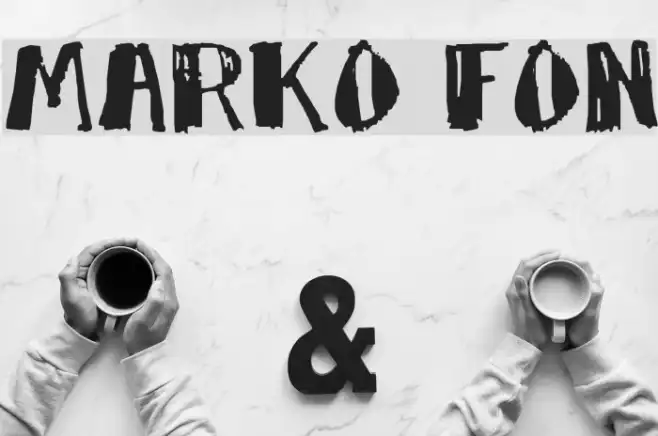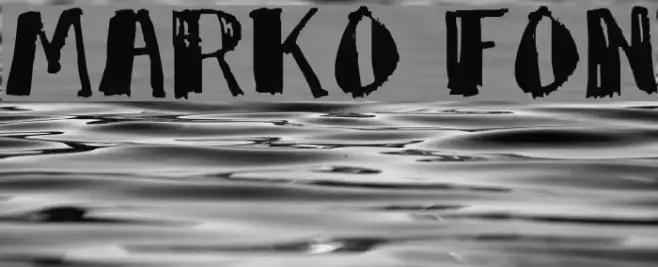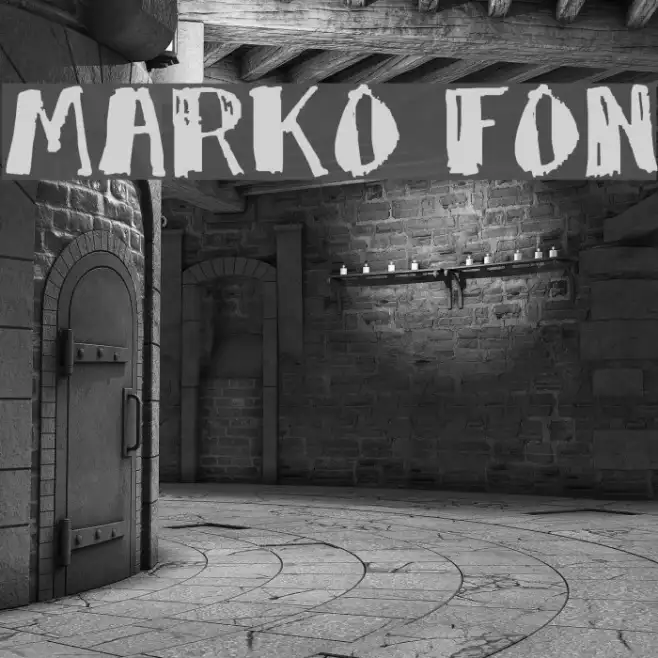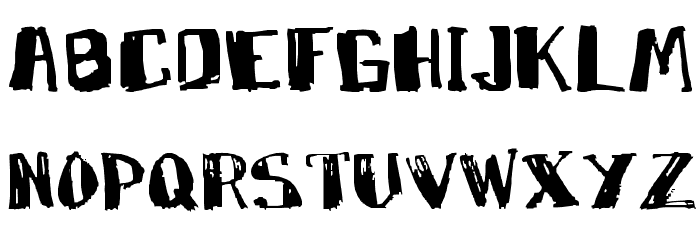
Marko Font
This font exhibits a bold and rugged style, characterized by its distressed and uneven edges that give it a hand-painted appearance. The uppercase letters are prominent and impactful, while the lowercase letters maintain the same boldness, creating a cohesive look. The numbers and special characters follow the same design ethos, ensuring consistency across all glyphs. This font's unique style is reminiscent of graffiti or street art, making it stand out in any design project.
A bold, distressed font with a hand-painted, graffiti-like style.
• Proposed Projects: Ideal for projects that require a strong, artistic touch, such as album covers, posters, streetwear branding, or urban-themed designs.
• Category: Decorative/Display
• Bold: Yes
• Italic: No
• Weight: Bold
• Width: Normal
• Character Spacing: Normal
• Contrast: Low
• Overall Style: Urban, Artistic, Graffiti
• Use Case: Headlines, Logos, Posters